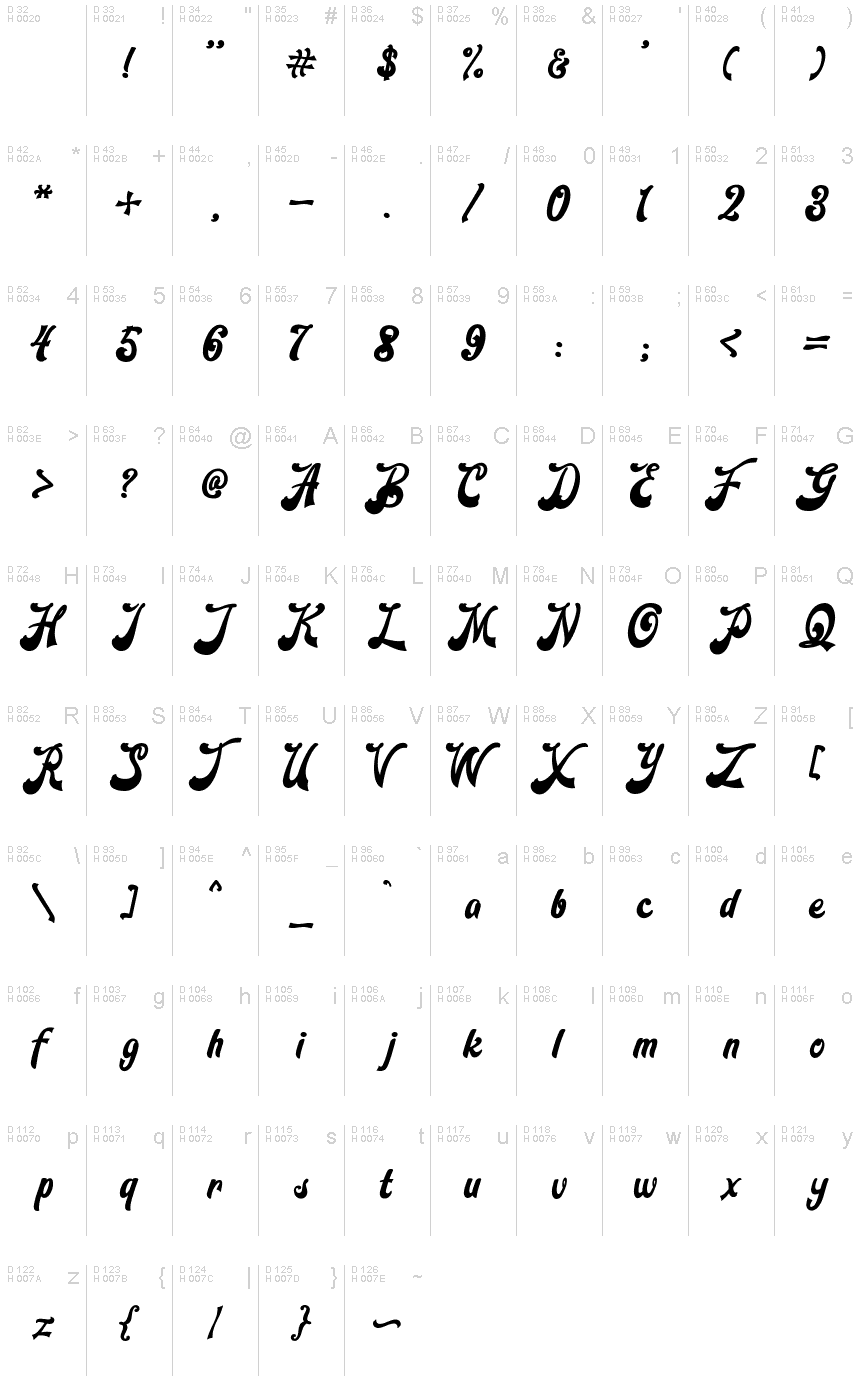
Blora
Introduce, this is our newest product, we give it a name
This product is Blora Font.
Blora thick and unique script font coming in two distinct versions, bold and regular. Get inspired by its timeless feel!